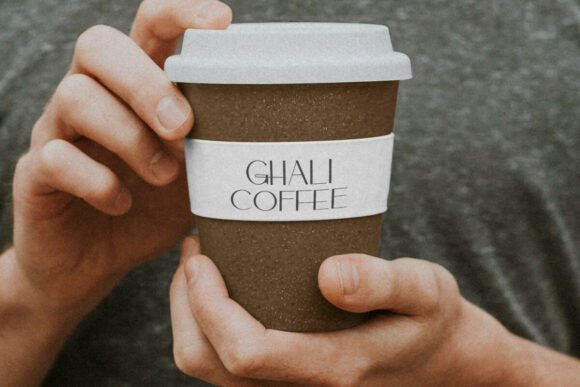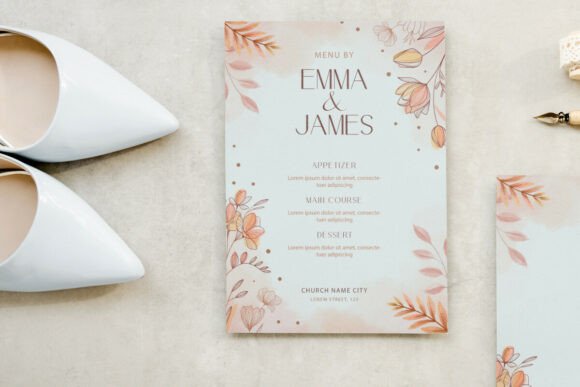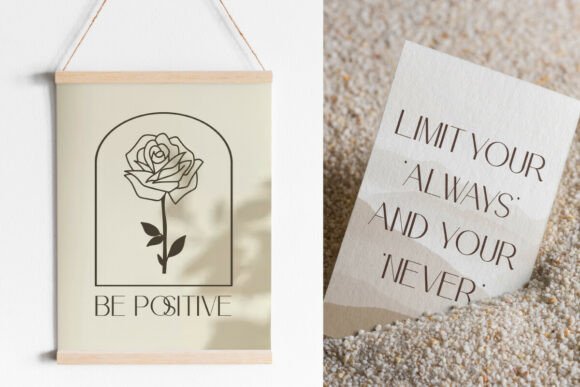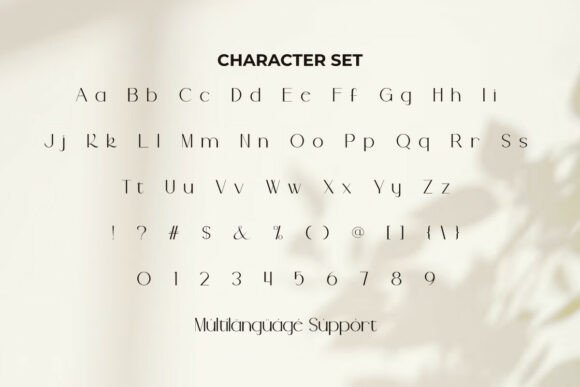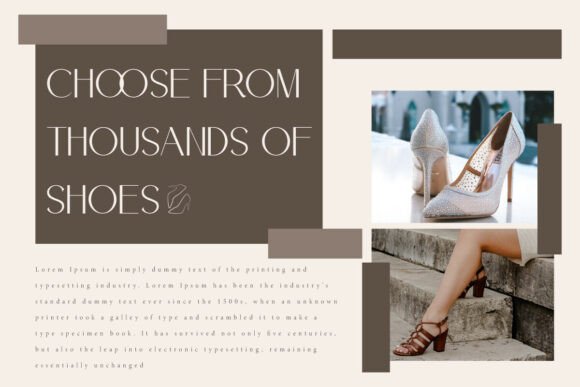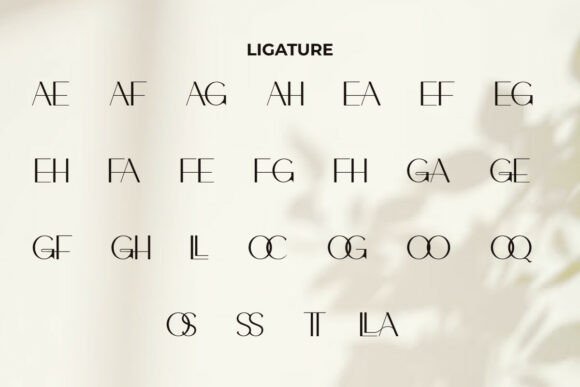
The Elusive Font: A Designer’s Quest for Gailla Font
I still remember the countless hours I spent searching for the perfect font for a client’s branding project. The client wanted something modern, elegant, and eye-catching, but I was struggling to find a font that checked all the boxes. That’s when I stumbled upon Gailla Font, a stunning sans serif display font that exceeded my expectations. In this article, I’ll share my experience with Gailla Font, its features, and how to make the most of it in your designs.
An Honest Review of Gailla Font
What I Love About Gailla Font ✨
- 💫 Luxurious and minimalist style: Gailla Font boasts a sleek, modern design that’s perfect for high-end branding and marketing materials.
- 🎉 Ligature characters: The font includes a range of ligature characters that add a touch of elegance to your designs.
- 👍 Versatility: Gailla Font is suitable for various industries, including fashion, beauty, and lifestyle.
- 💻 PUA encoding: The font features PUA encoding, making it easy to access alternates and flourishes without requiring design tools.
While Gailla Font is an excellent choice for many design projects, there are a few things to keep in mind:
- 🤔 Limited use in body text: Due to its display nature, Gailla Font may not be the best choice for body text or long-form content.
- ⚠️ Limited language support: Gailla Font may not support all languages or characters, so be sure to check the font’s specifications before use.
The Designer Inspiration Behind Gailla Font
Gailla Font was designed with the modern designer in mind. Its creator aimed to craft a font that would be both elegant and versatile, suitable for a wide range of design projects. The font’s minimalist style and luxurious feel make it perfect for designers who want to add a touch of sophistication to their work.
Q: What is Gailla Font?
A: Gailla Font is a stunning sans serif display font with a luxurious, minimalist style and ligature characters.
Q: What is PUA encoding?
A: PUA (Private Use Area) encoding is a way of encoding font characters that allows for easy access to alternates and flourishes without requiring design tools.
Q: Is Gailla Font suitable for body text?
A: Due to its display nature, Gailla Font may not be the best choice for body text or long-form content. It’s recommended to use it for headlines, titles, and short-form text.